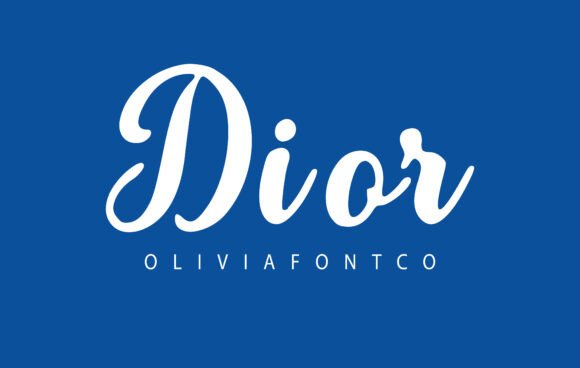
Dior Font Download Script Fonts: In the world of typography, few fonts manage to combine grace, personality, and artistic flair the way the Dior Font does. Named and inspired by the elegance of luxury fashion house Christian Dior, this handwritten script font embodies class, romance, and timeless sophistication. Whether you’re designing a wedding invitation, a branding logo, or personalized stationery, the Dior Font brings a refined touch that instantly elevates your work.
What Is the Dior Font?
The Dior Font is a beautiful handwritten script that channels the same elegance and romance you’d associate with haute couture fashion. While not the official typeface used by the Dior fashion brand (which uses a refined serif font resembling Nicolas Cochin or Firmin Didot), the Dior Font in design circles typically refers to a handwritten script font that mirrors the luxurious and feminine appeal associated with the Dior brand.
This font is often designed with thin, flowing lines, delicate strokes, and subtle swashes — all coming together to convey a personal, stylish, and romantic message. Its handwritten nature gives it warmth and character, making it suitable for both professional and heartfelt creative projects.
Why Designers Love Dior Font
The popularity of Dior Font isn’t just based on its name. It’s a font that offers versatility, emotion, and a premium feel. Here’s why it’s a top pick among designers:
1. Authentic Handwritten Feel
The Dior Font mimics real handwriting with elegance and flow, perfect for wedding invitations, personal branding, and feminine product packaging.
2. Romantic and Feminine Aesthetic
Its soft, graceful strokes convey romance, making it ideal for love letters, quotes, or any design that needs a gentle, emotional touch.
3. Luxury-Inspired Style
Because of its association with Dior and its upscale appearance, this font is great for high-end branding, fashion designs, and boutique labels.
4. Versatility Across Media
From social media graphics to physical prints and websites, the Dior Font adapts beautifully across platforms, offering consistency and elegance in all formats.
Dior Font Uses in Modern Design
Here’s how creators are using Dior Font across various projects:
• Wedding Invitations & Stationery: Its romantic script style is a natural fit for invitations, RSVP cards, and wedding decor.
• Luxury Brand Logos: Fashion boutiques and beauty brands love Dior Font for its association with class and elegance.
• Social Media Graphics: Quotes, Instagram highlights, and story covers get a stylish upgrade with this script font.
• Product Packaging: Cosmetics, perfumes, and jewelry brands use Dior Font for a chic label design.
• Personalized Gifts & Cards: Dior Font adds a loving touch to customized items like mugs, journals, and holiday cards.